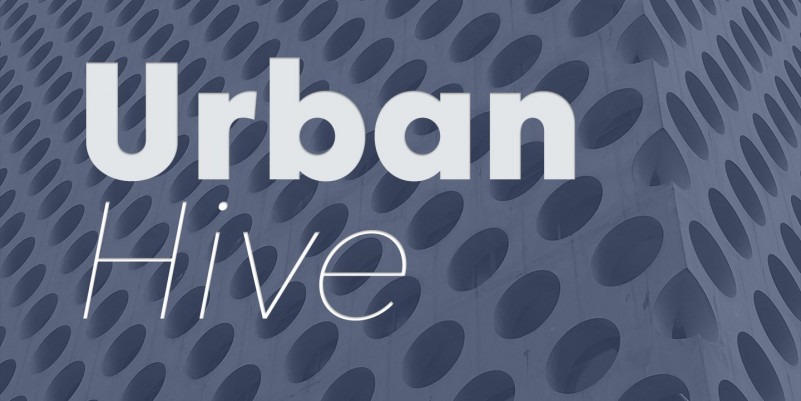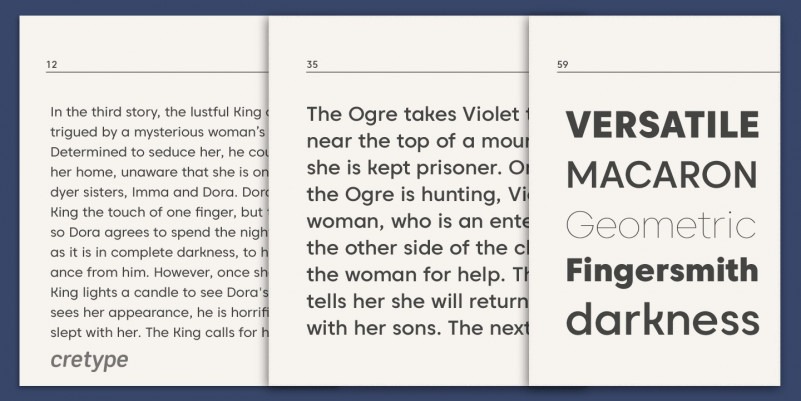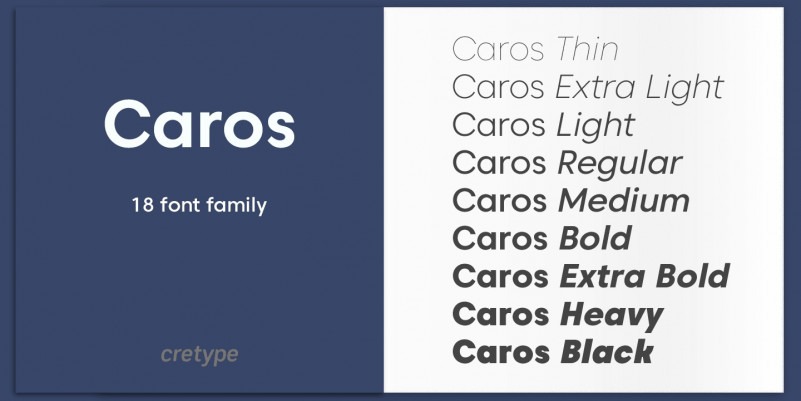
Caros Font Family
Caros Sans Serif Font
It’s a geometric sans-serif font family made up of 9 weights (Thin, ExtraLight, Light, Regular, Medium, Bold, ExtraBold, Heavy & Black) with italics. Letters in this type family are designed with geometric shapes without any decorative distractions. The spaces between individual letter forms are precisely adjusted to create the perfect typesetting.
The Open Type fonts contain complete Latin 1252, Cyrillic, Central European 1250, Turkish 1254 character sets. Each font includes proportional figures, tabular figures, numerators, denominators, superscript, scientific inferiors, subscript, fractions and case features.